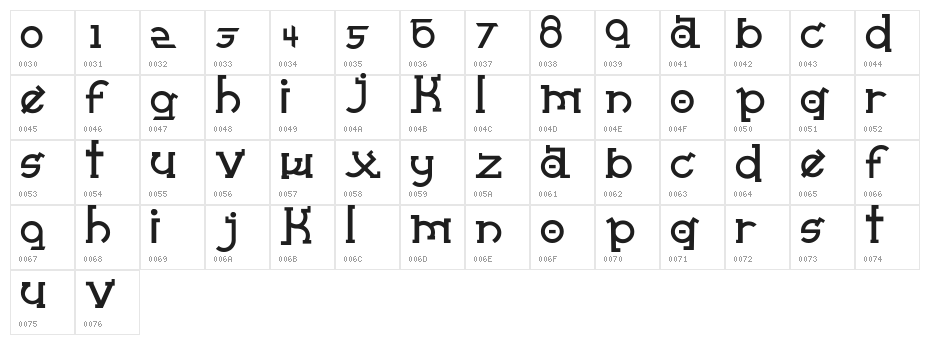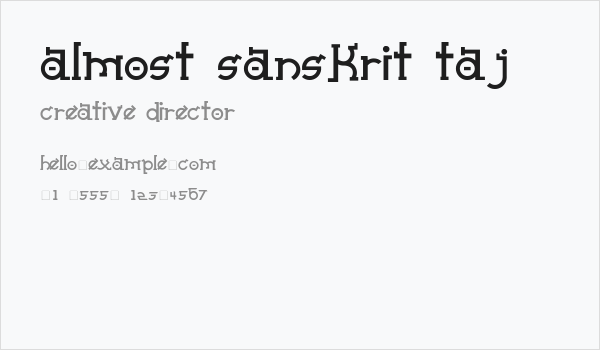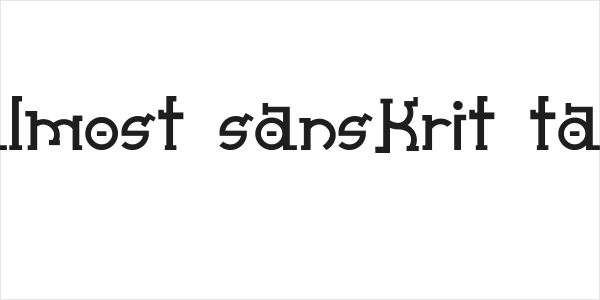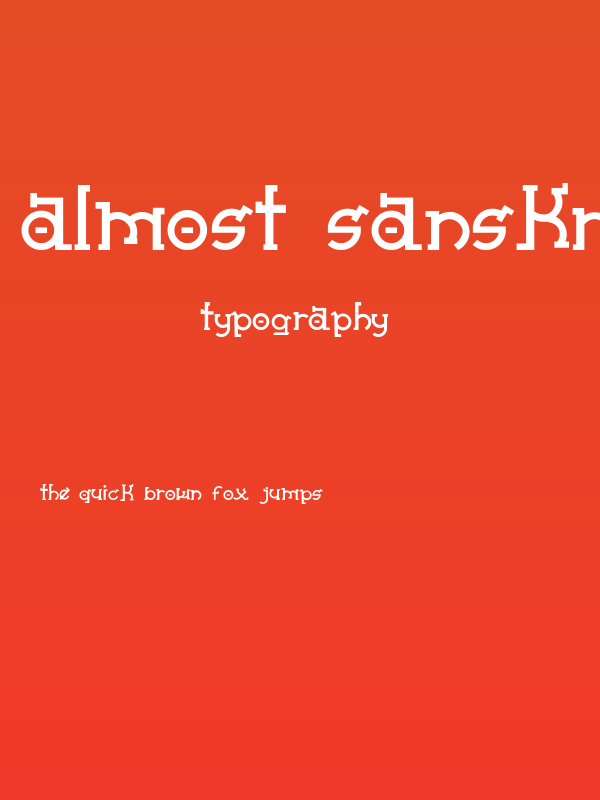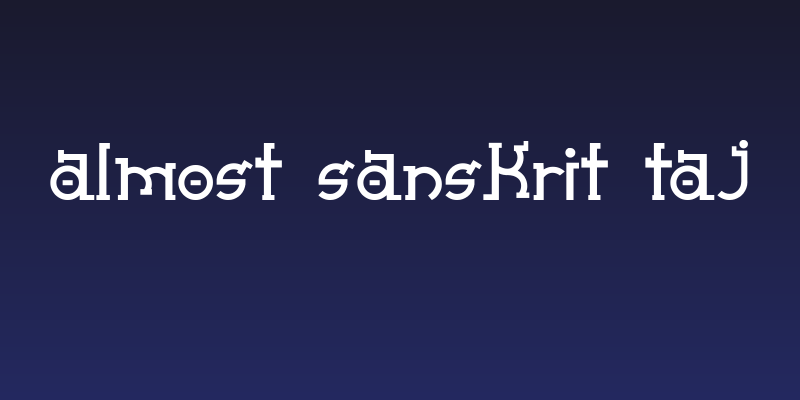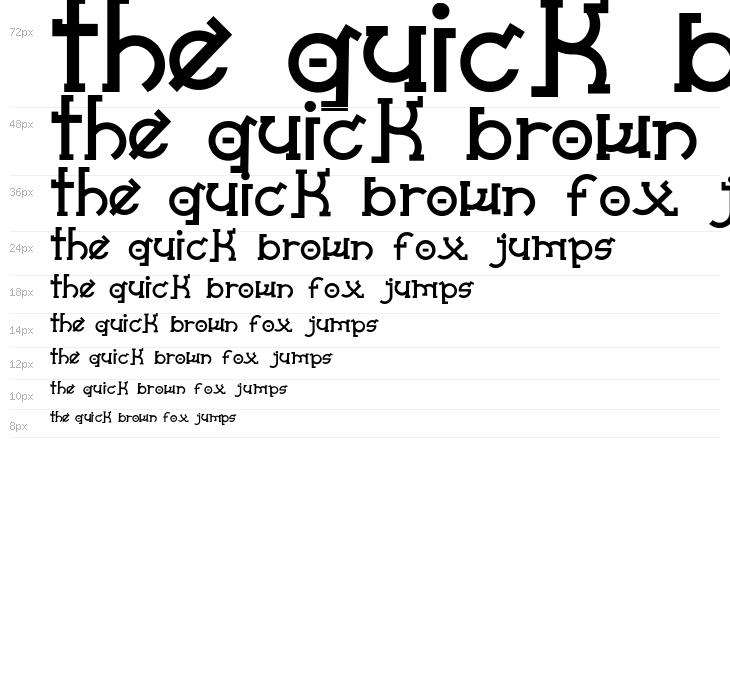
Almost Sanskrit taj Font
Almost Sanskrit taj Description
This font features a unique blend of geometric and decorative elements, reminiscent of traditional Sanskrit script but with a modern twist. The characters are bold and have a distinct angularity, with sharp edges and a consistent stroke width that gives them a strong presence. The uppercase and lowercase letters share a similar style, maintaining uniformity across the alphabet. Numbers are equally stylized, with a playful yet structured appearance. The font's special characters are designed to match the overall aesthetic, ensuring a cohesive look. This typeface is ideal for projects that require a touch of cultural flair combined with contemporary design.